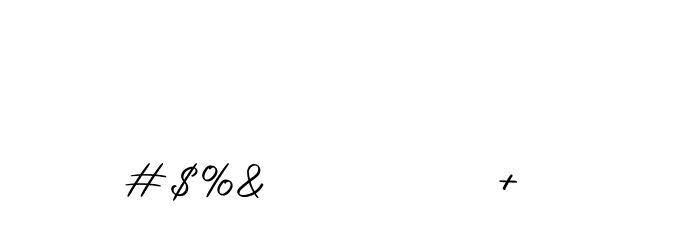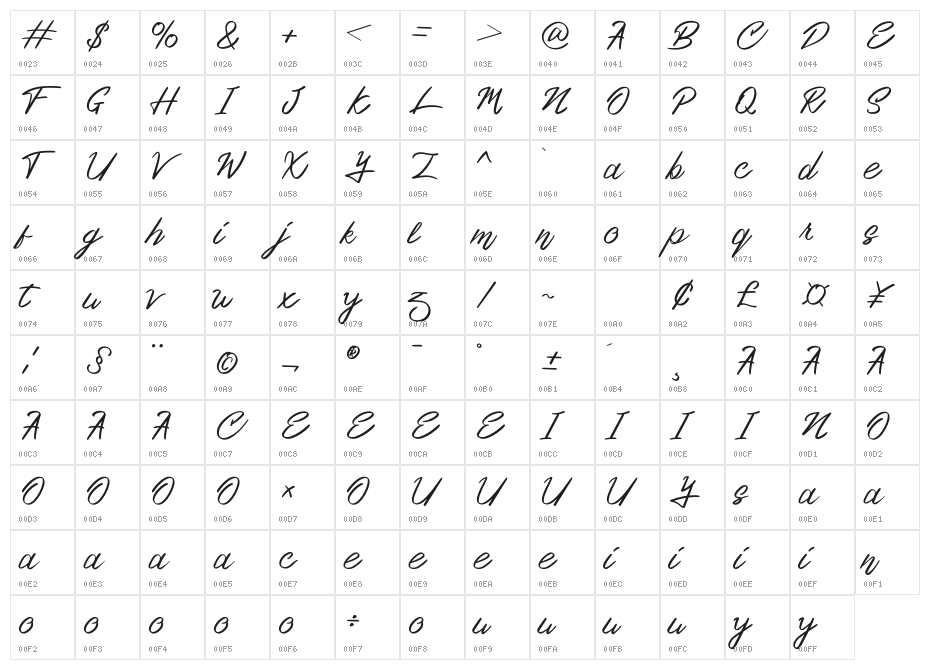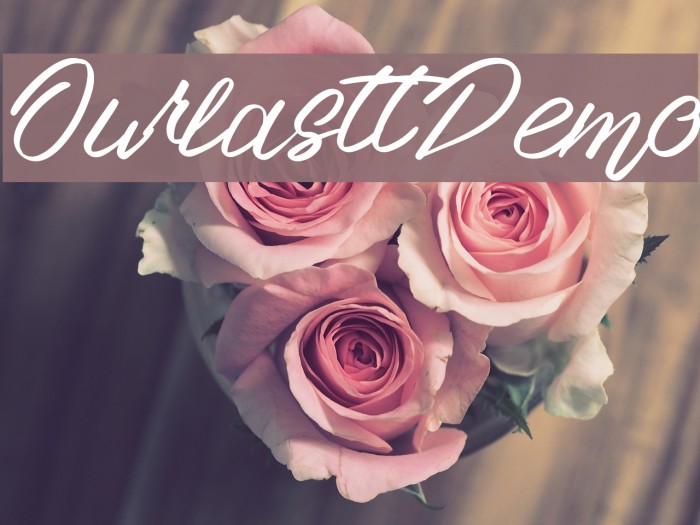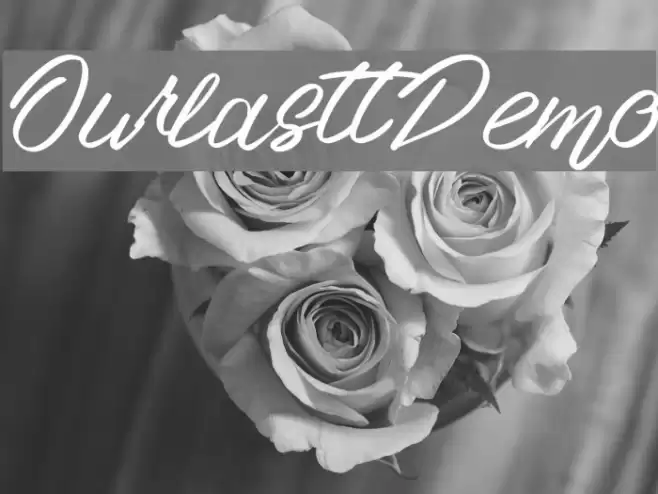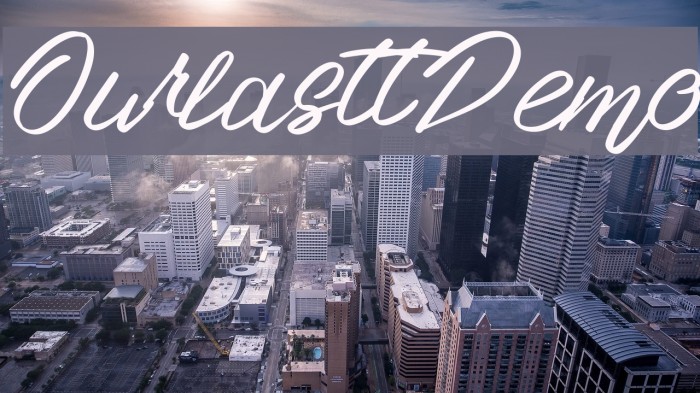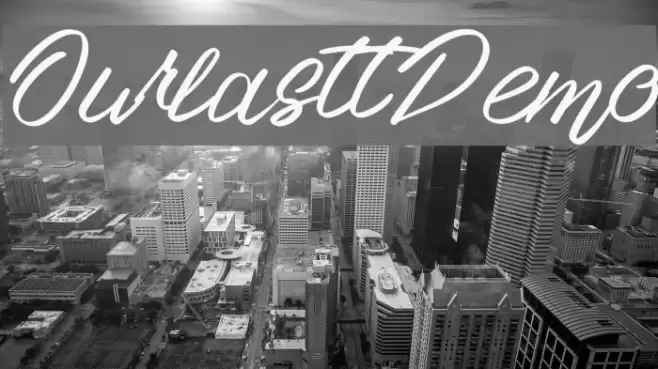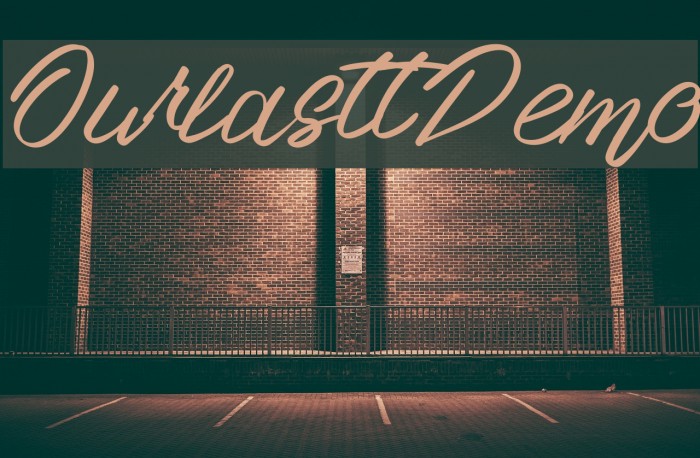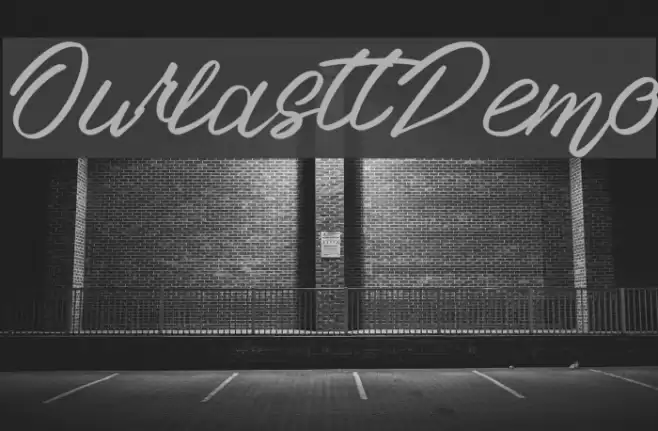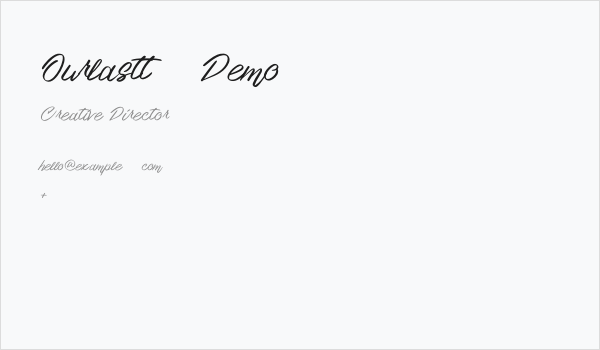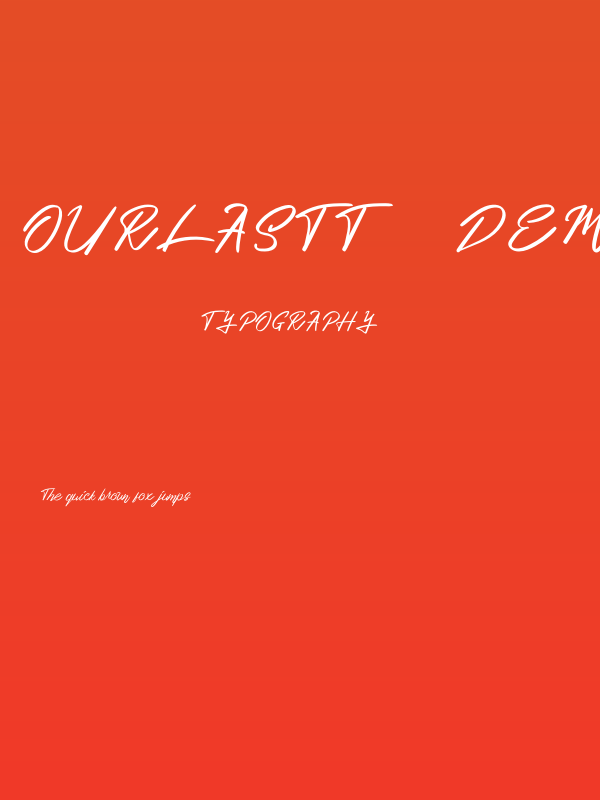
Ourlastt-Demo Font
Ourlastt-Demo Description
This font features a flowing, cursive style with elegant, sweeping strokes that give it a sophisticated and artistic appearance. The uppercase letters are slightly more formal, with pronounced loops and curves, while the lowercase letters maintain a consistent fluidity that enhances readability. The characters are connected in a way that mimics natural handwriting, adding a personal touch to the text. The numbers and special characters are designed to match the overall aesthetic, ensuring a cohesive look across all elements. This font is ideal for projects that require a touch of elegance and creativity.
Overall StyleElegant, Artistic
Use CaseLogos, Invitations, Artistic projects
Proposed ProjectsIdeal for wedding invitations, greeting cards, personal branding, and artistic projects.